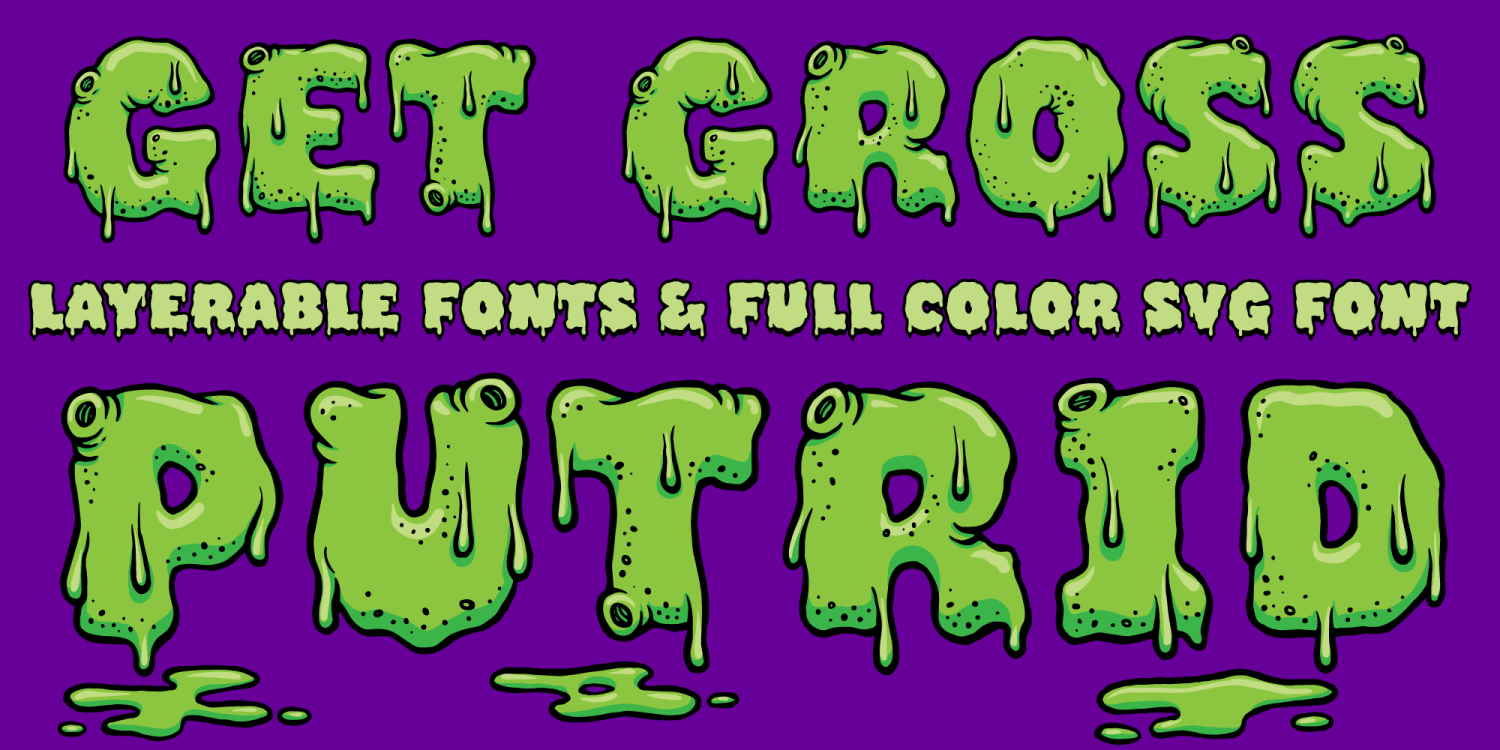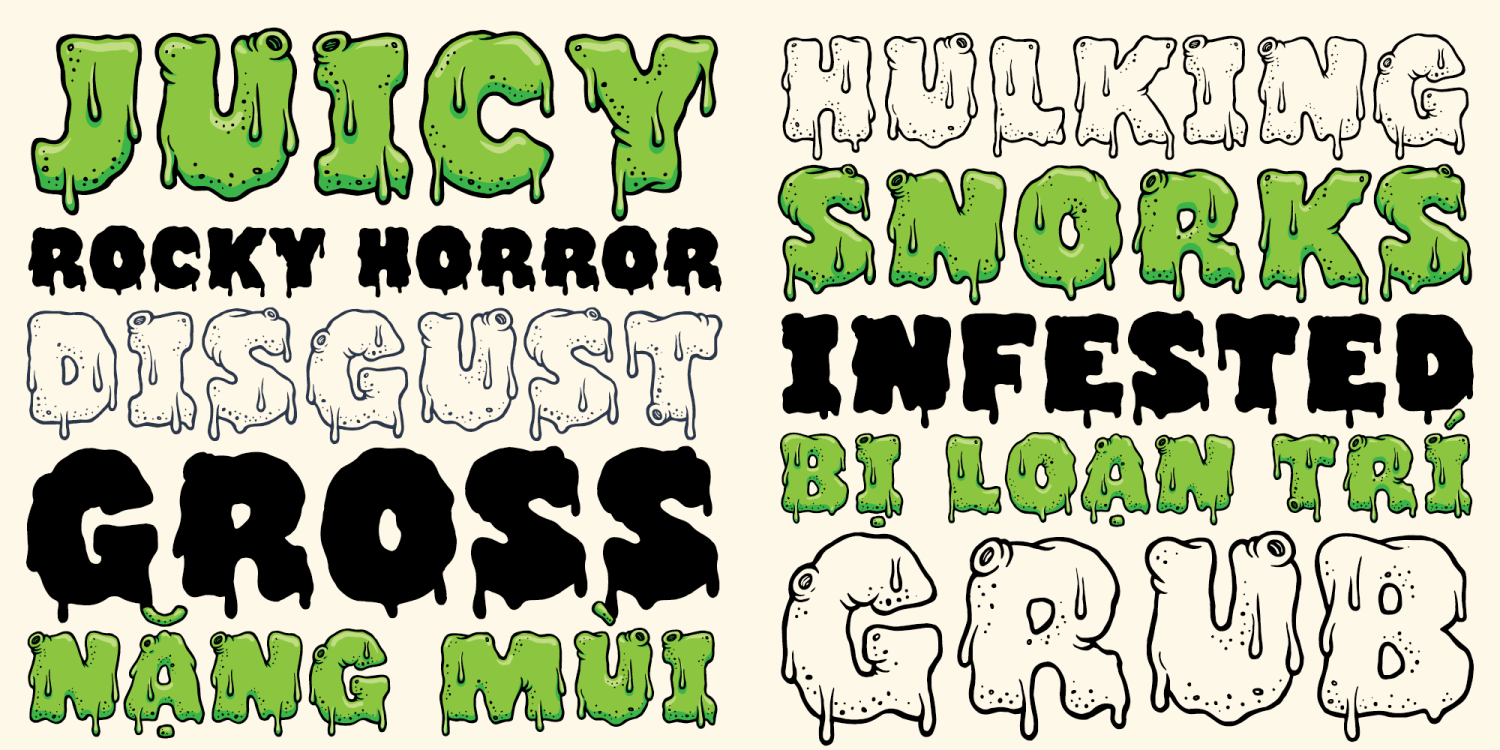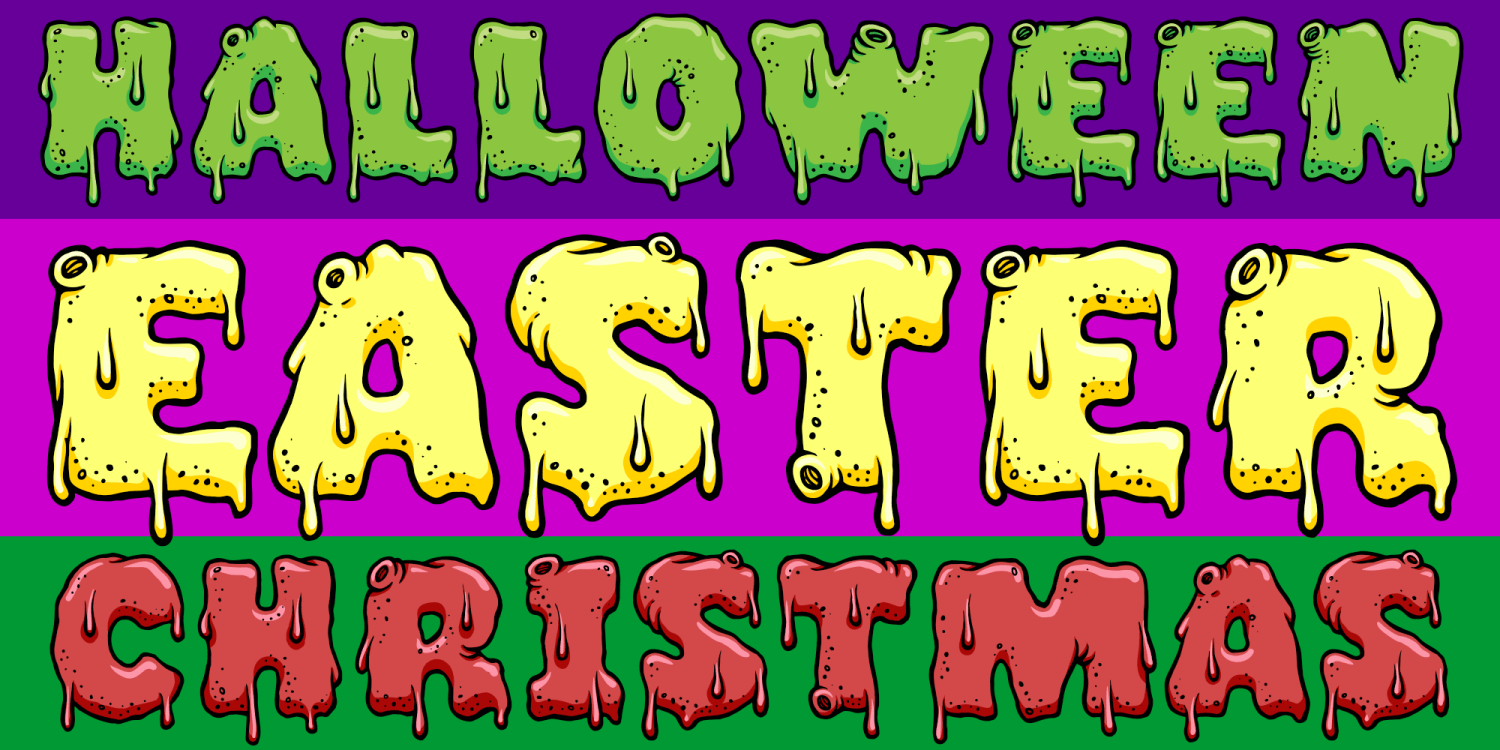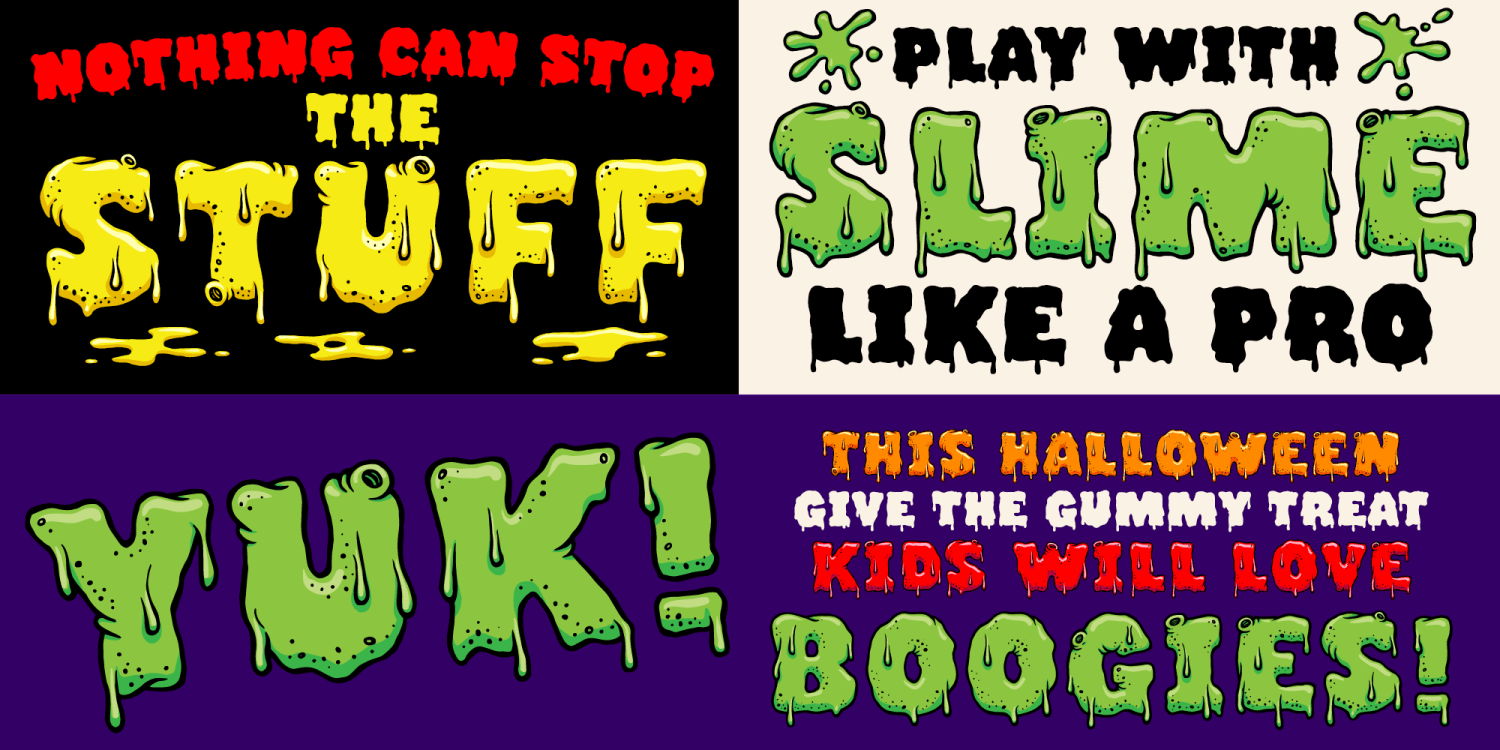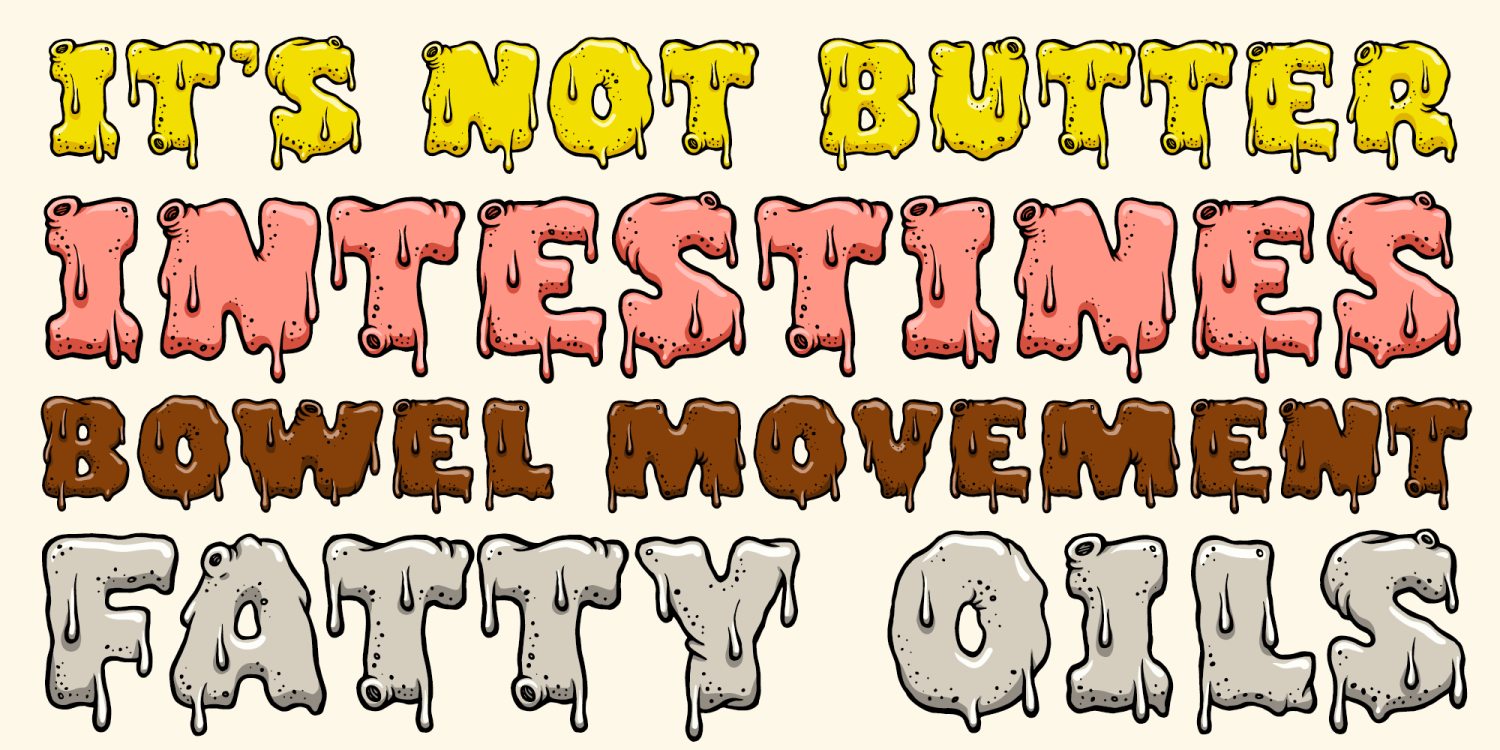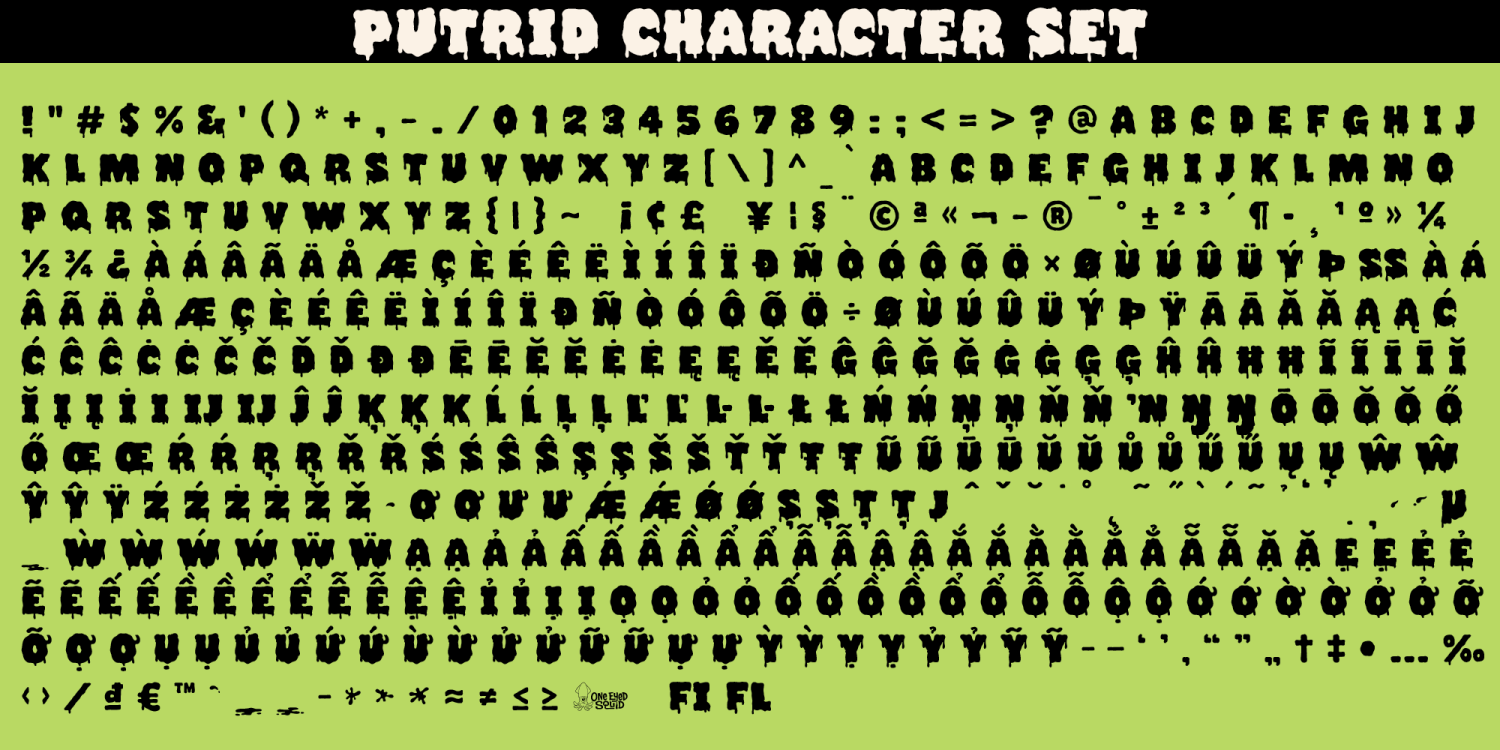
Putrid
Font Family by One Eyed Squid
Putrid is a grotesque, slime-dripping display font built for bold, disgusting impact and over-the-top horror styling. Its oozing, decomposing letterforms are packed with texture and detail, making it perfect for designs that lean into grime, decay, and outrageous visual character. The family includes multiple layerable styles—Fill, Shadow, Highlight, and Regular (outline with details)—allowing you to stack and color each layer to create rich, dimensional typographic effects. Whether used individually or combined, Putrid delivers maximum visual punch for posters, horror-themed graphics, gaming, branding, packaging, and attention-grabbing headlines. Includes extended Latin language support, including Vietnamese.